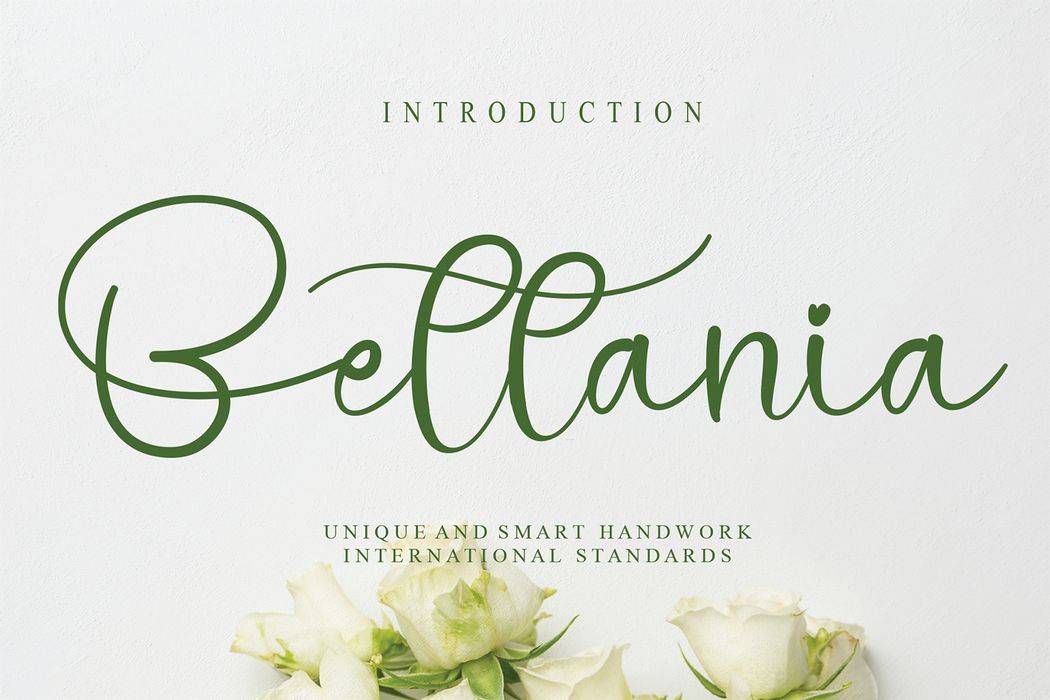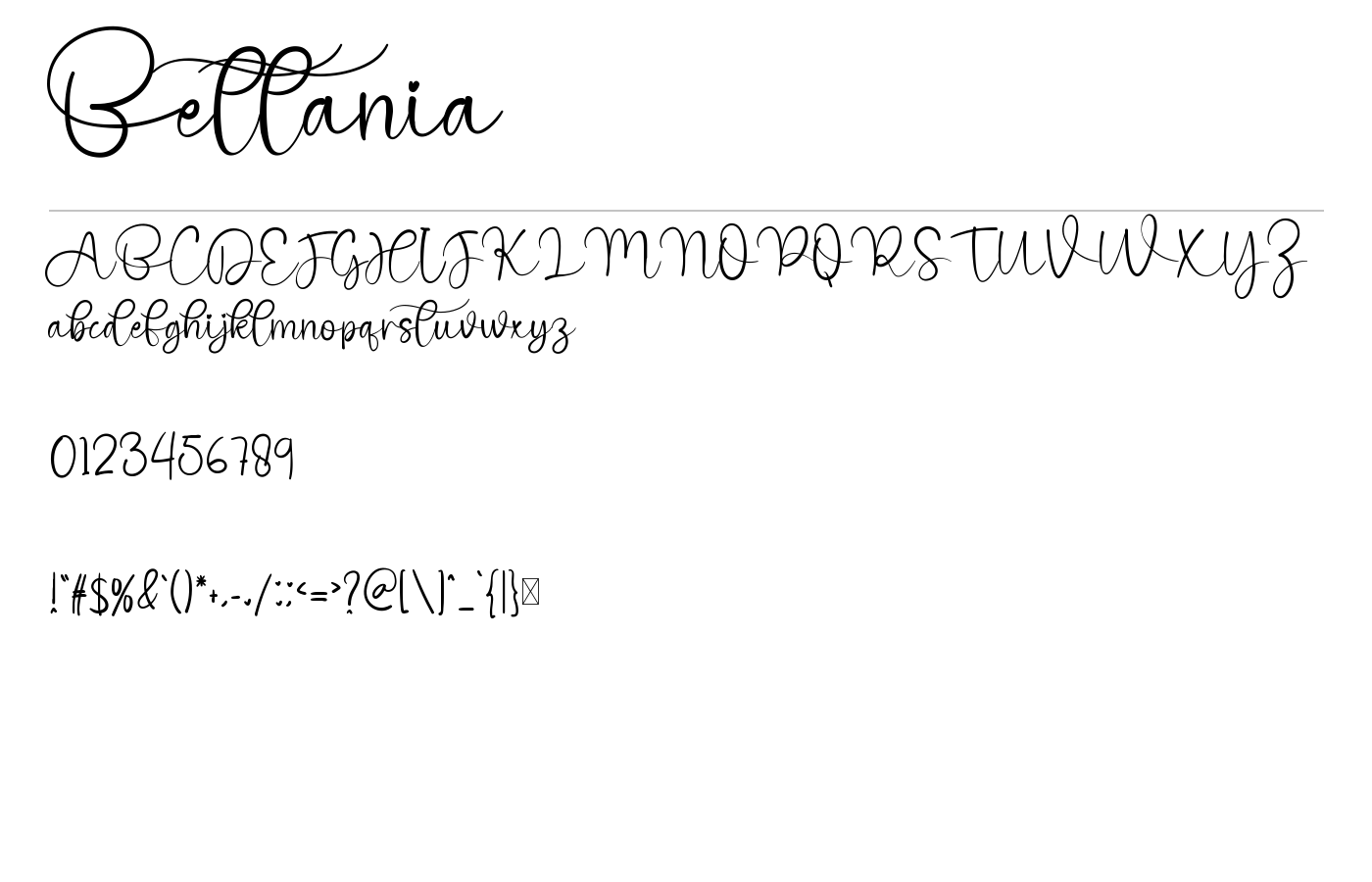
Bettania is a delicate and charming script font that features thin, flowing strokes with a whimsical, handwritten feel. Its elegant letterforms, including unique swashes and playful details, make it perfect for romantic, feminine, and creative designs such as invitations, branding, and logos. This font’s graceful style adds a personal and artistic touch, making it ideal for projects that aim to convey warmth and sophistication.
Bettania Font
About Bettania Font